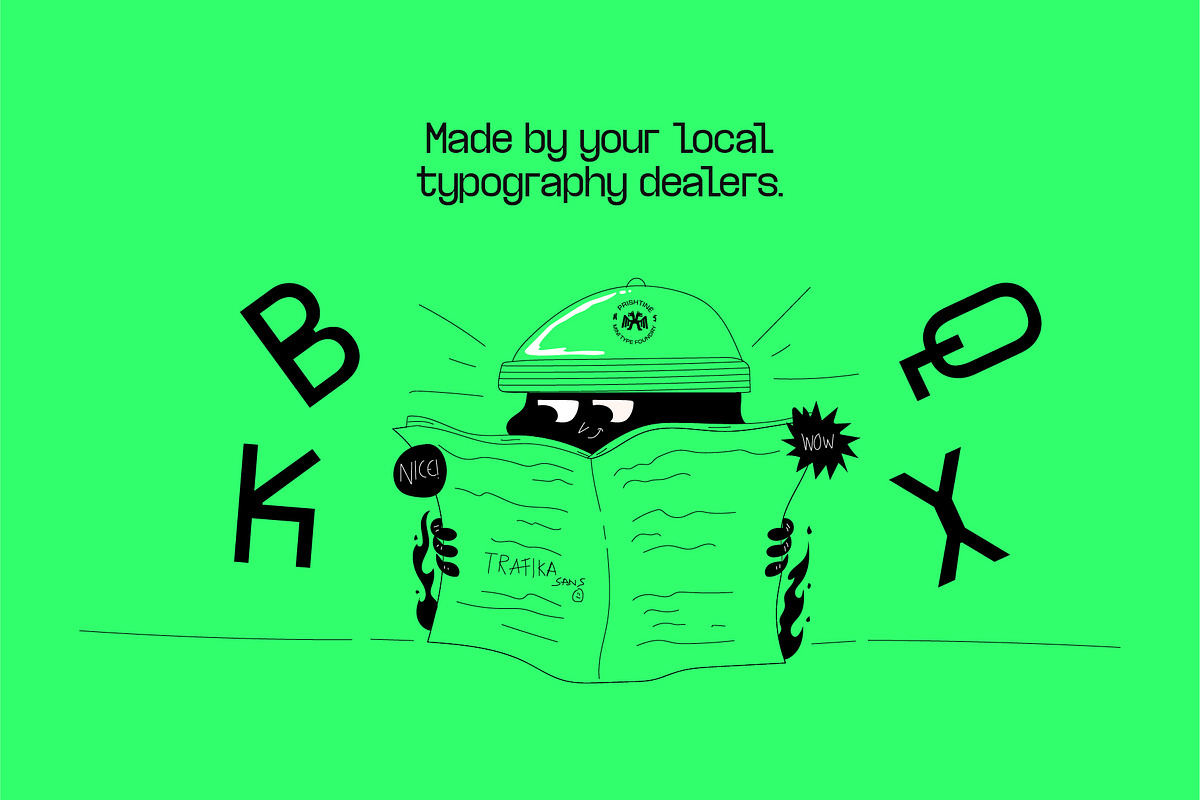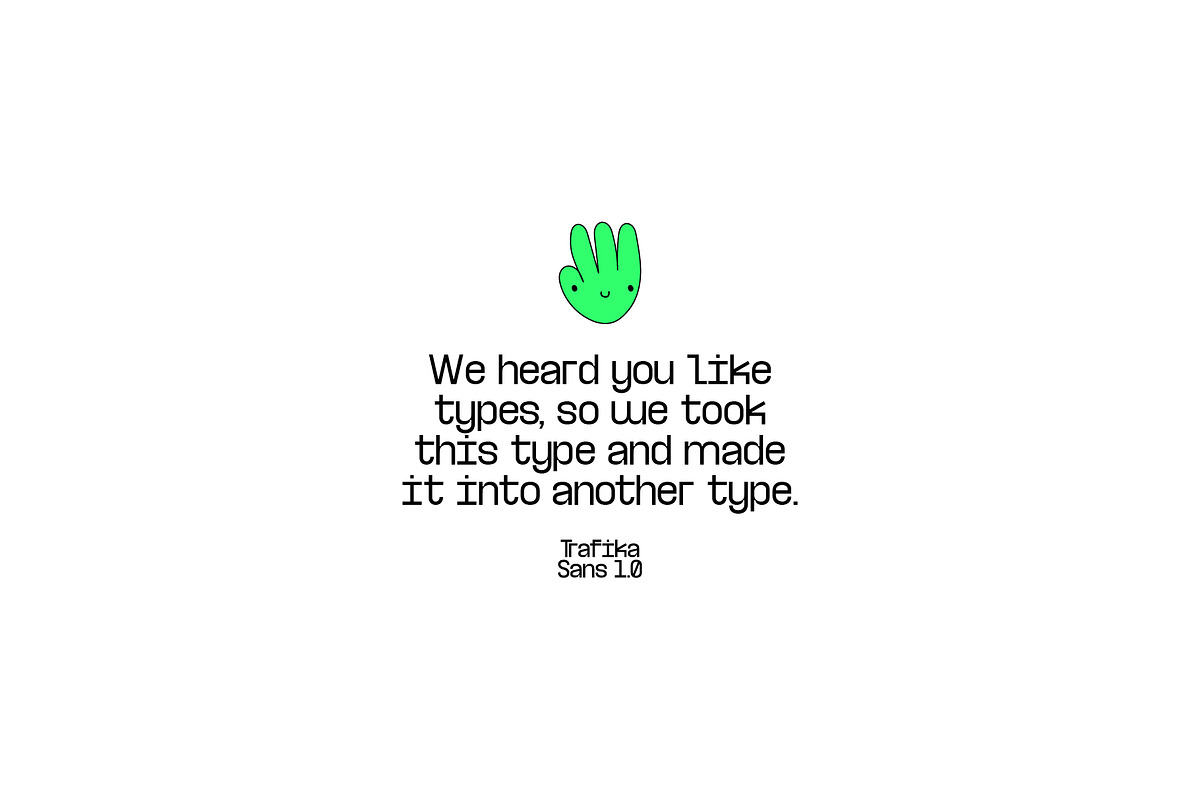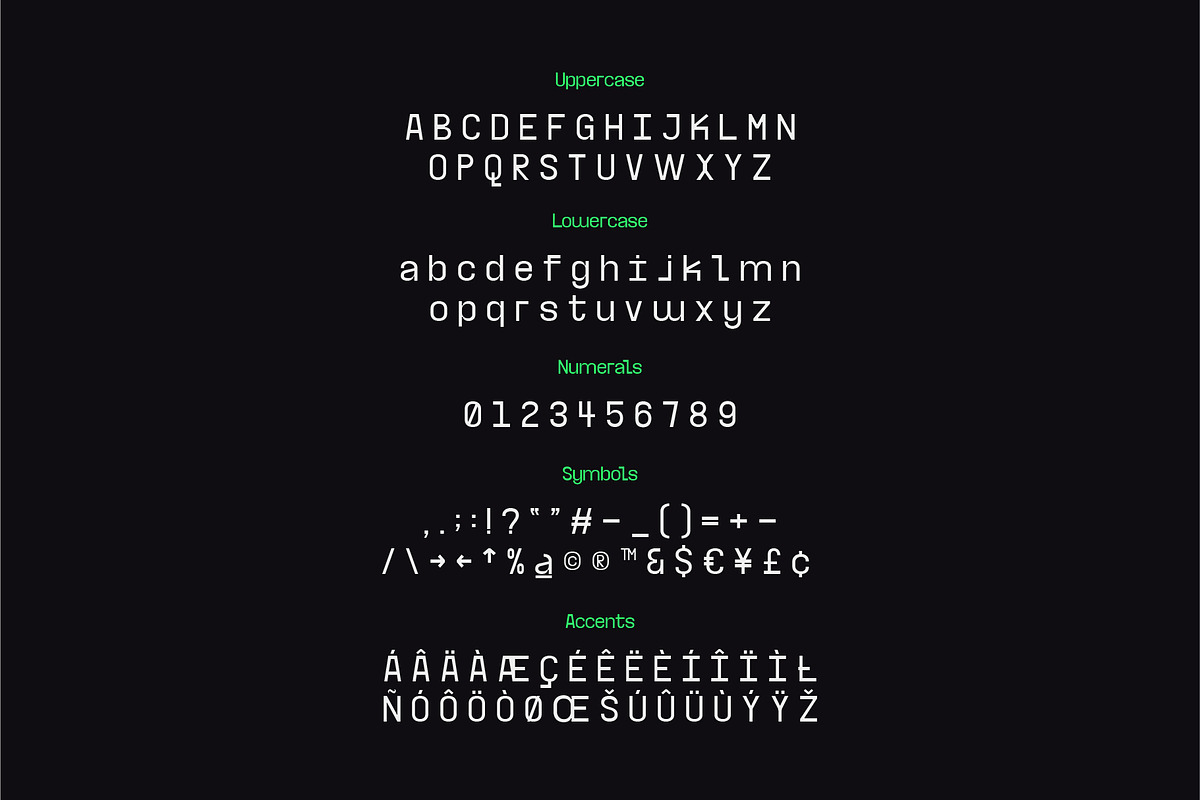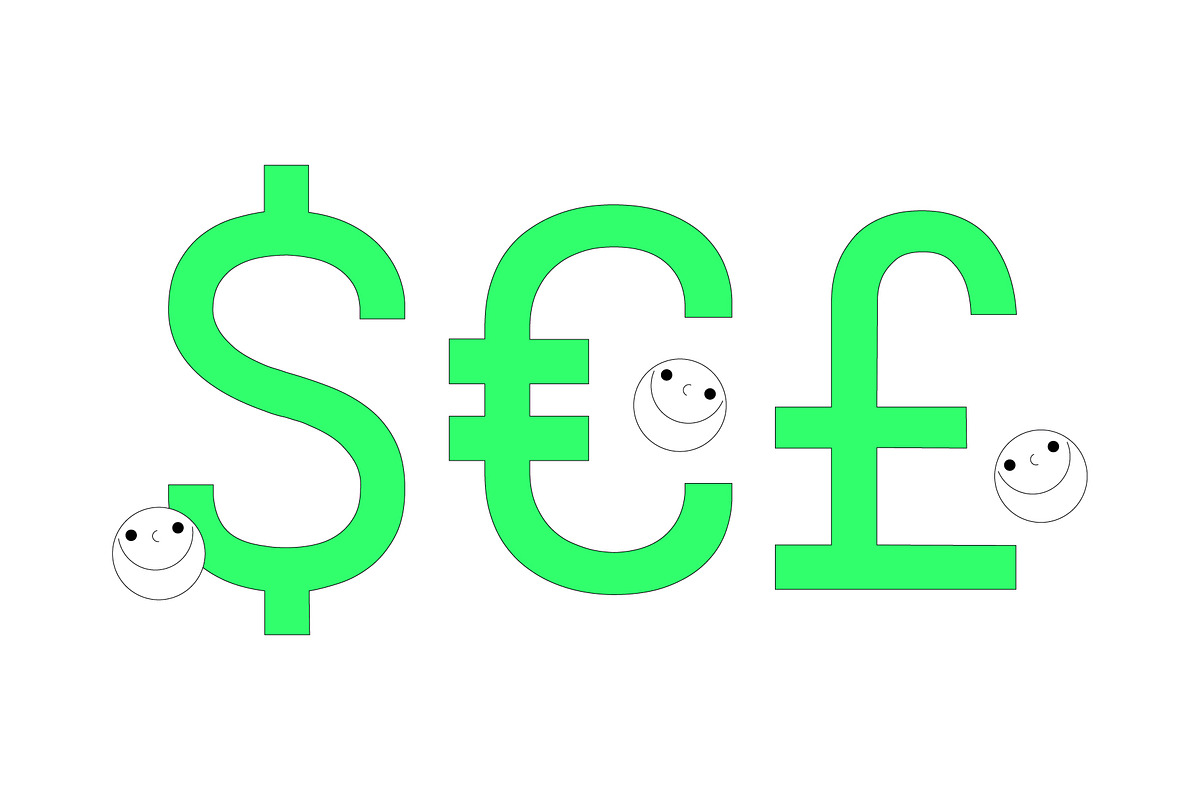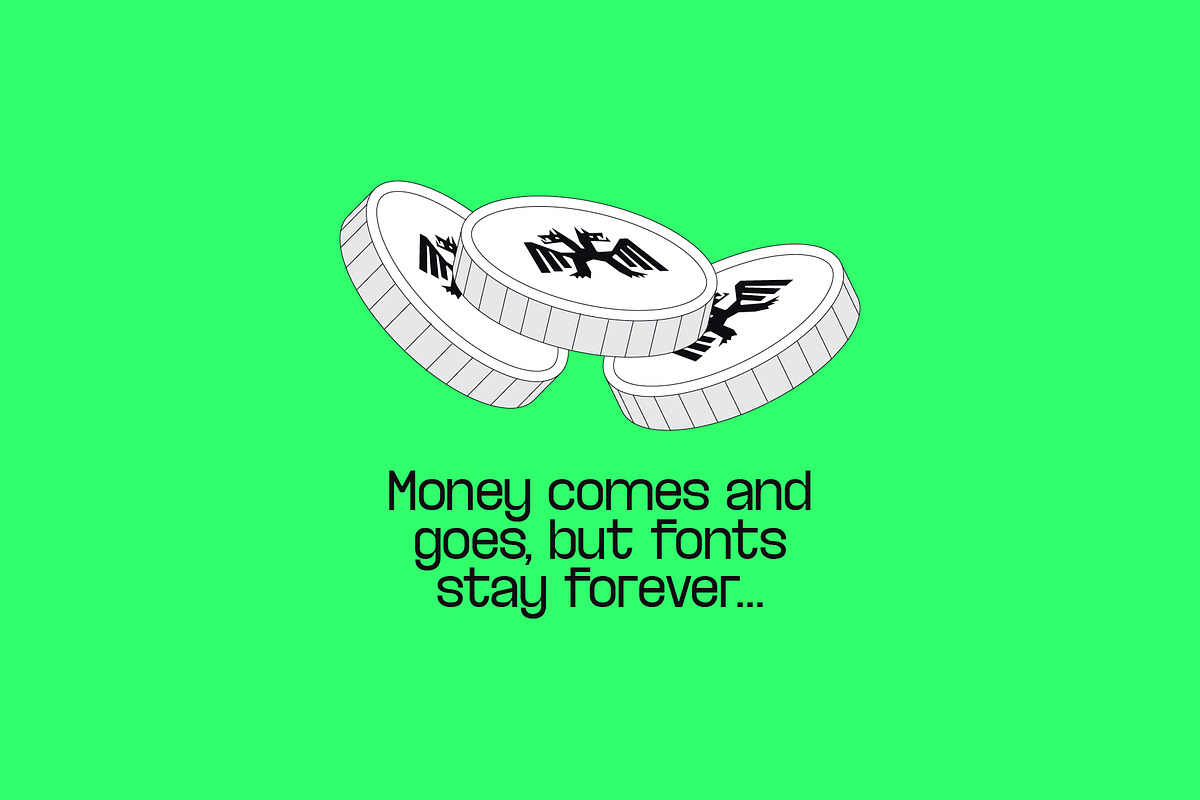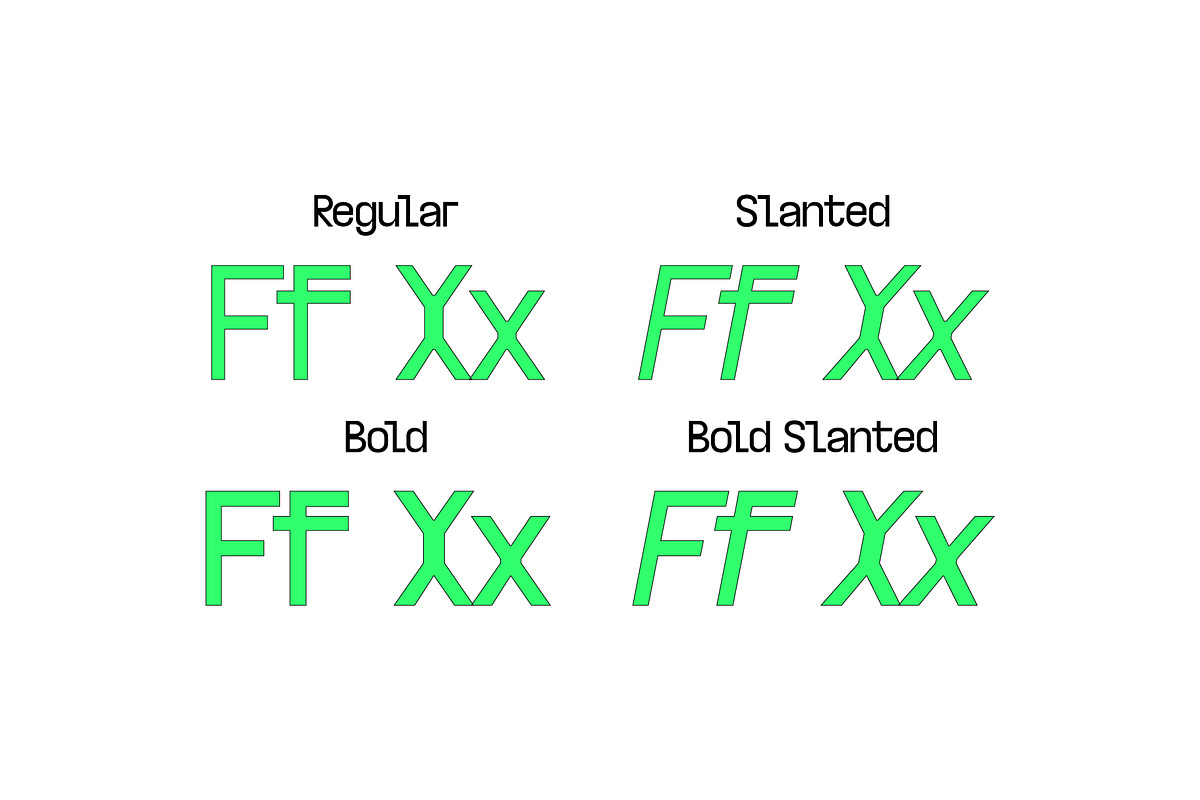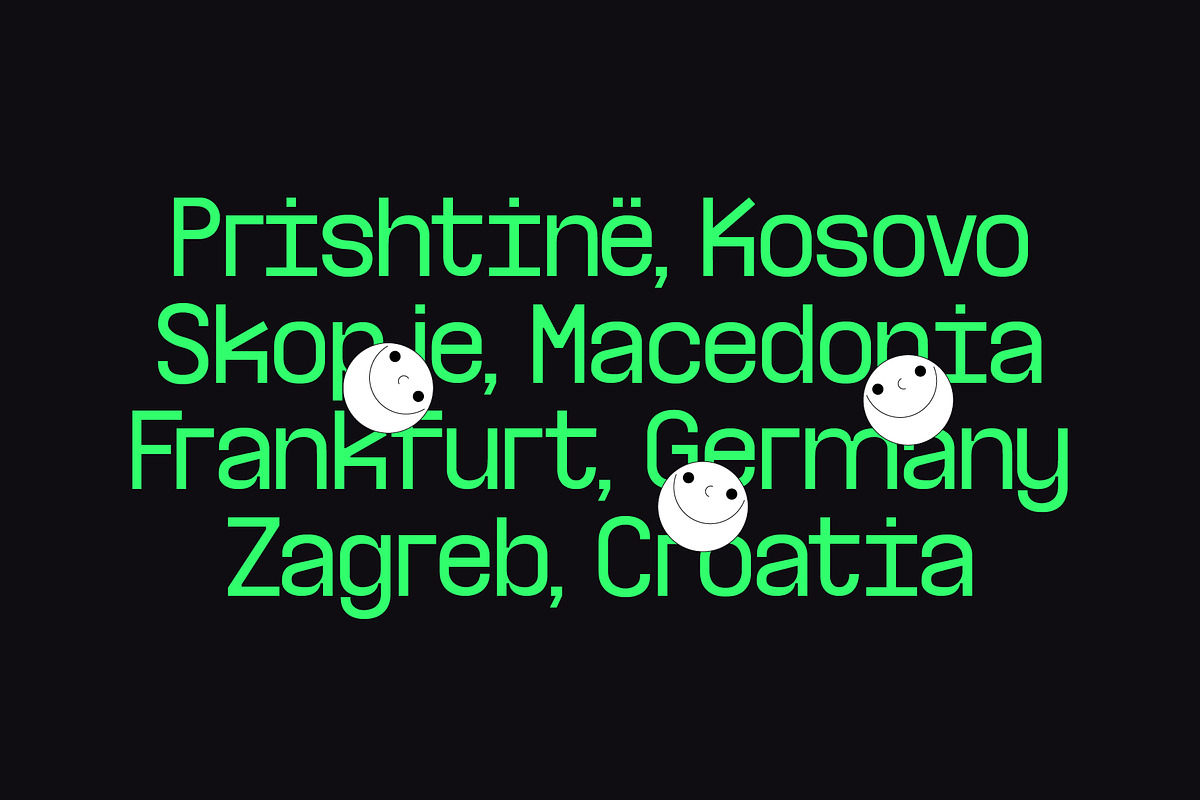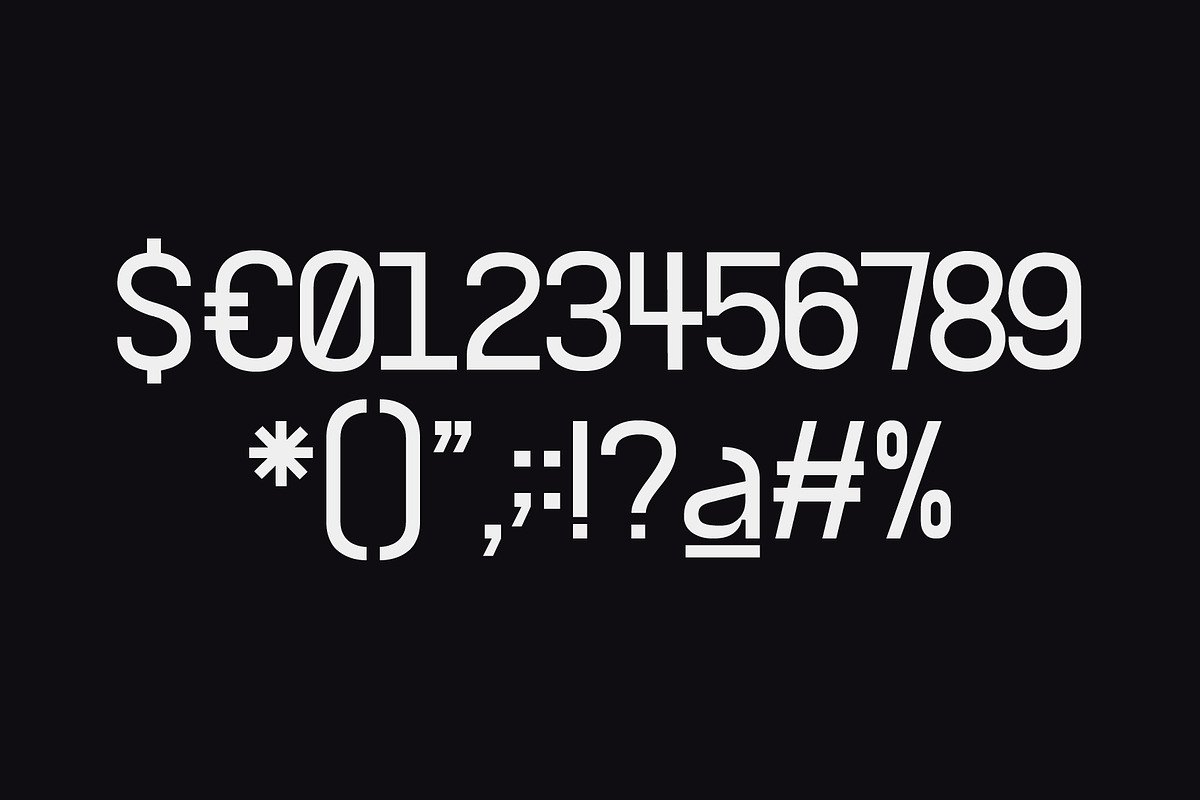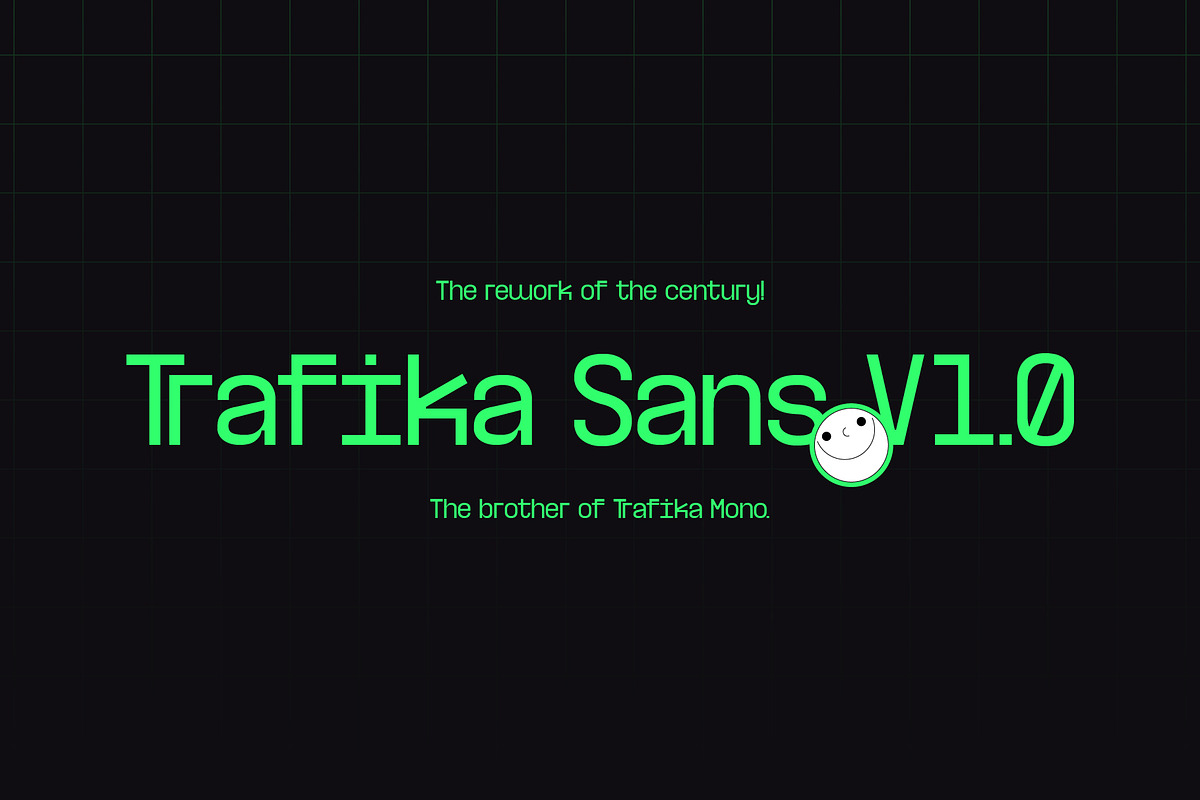
Trafika - Sans Type
Wooo! We got some very nice news. Trafika Mono has been reworked & introduced into the Sans Serif world. With experimental glyphs, busty curves & sharp turns this will for sure be your new to-go sans.
The history of the type: Trafika is an experimental monospace with a contemporary approach. The name comes from the little shops located in Prishtinë which are called "Trafika". They were built quite some time ago, the oldest even during the Yugoslavian era.
Features regular, bold + italic versions.